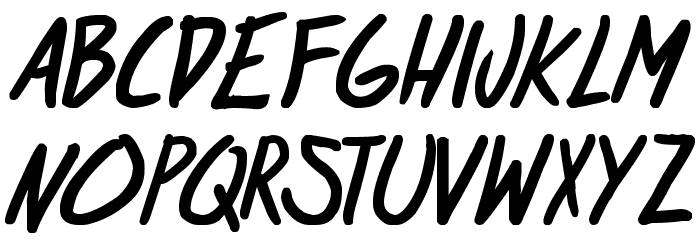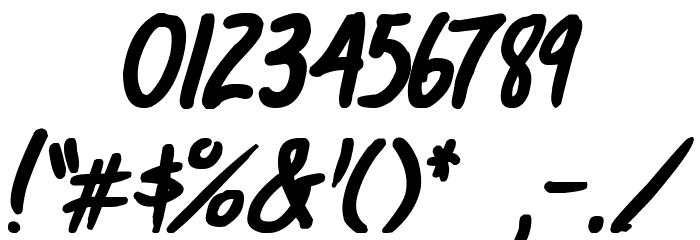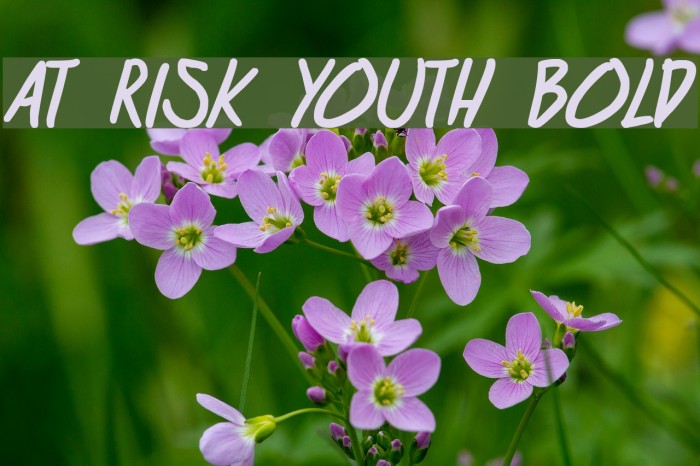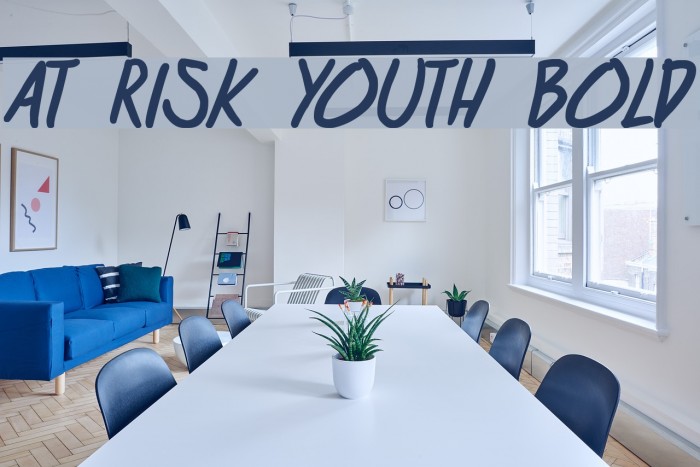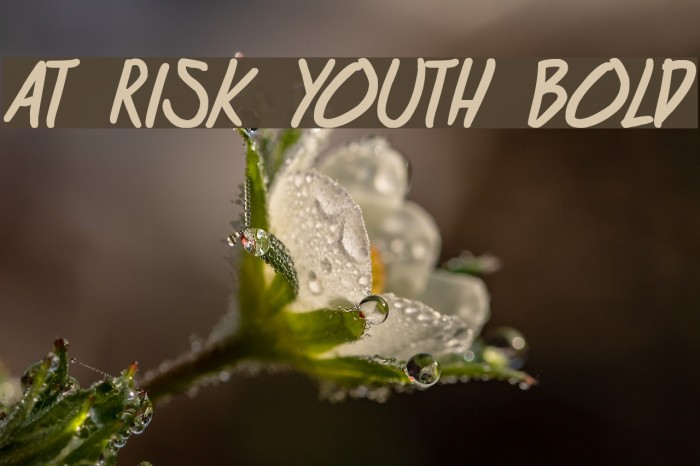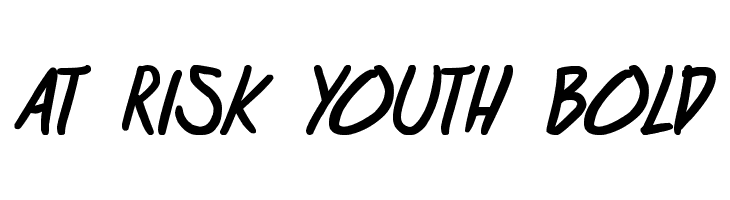
at risk youth Bold Font
This font features a bold, handwritten style that exudes a sense of energy and dynamism. The letters are slightly slanted, giving it a casual and informal appearance. The strokes are thick and consistent, providing a strong visual impact. The characters are well-spaced, ensuring readability while maintaining a cohesive look. The numerals and special characters follow the same bold and expressive style, making the font versatile for various uses. Its playful yet assertive design makes it suitable for projects that require a personal touch with a strong presence.
A bold, handwritten font with a dynamic and energetic style.
- Proposed Projects: Ideal for posters, branding, social media graphics, and any project needing a bold, personal touch.